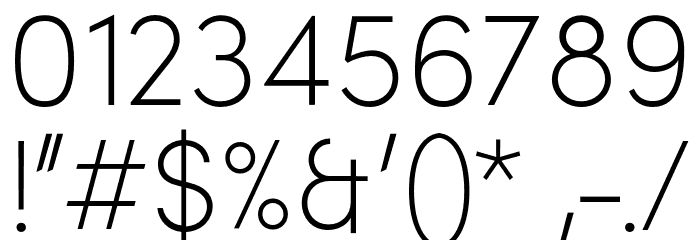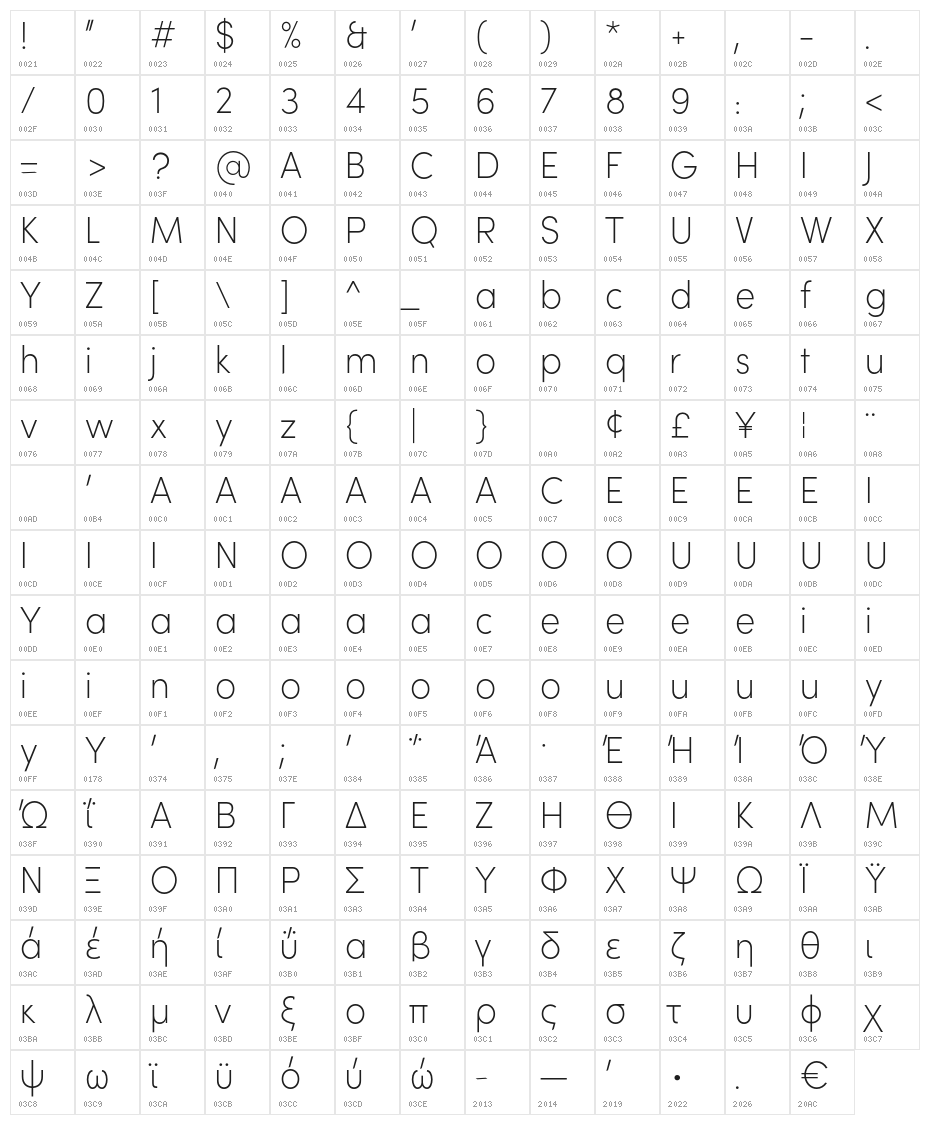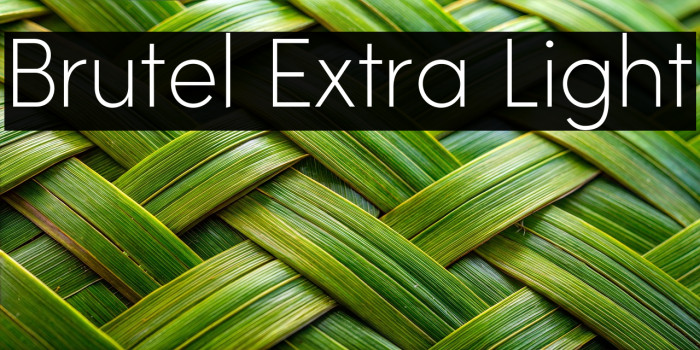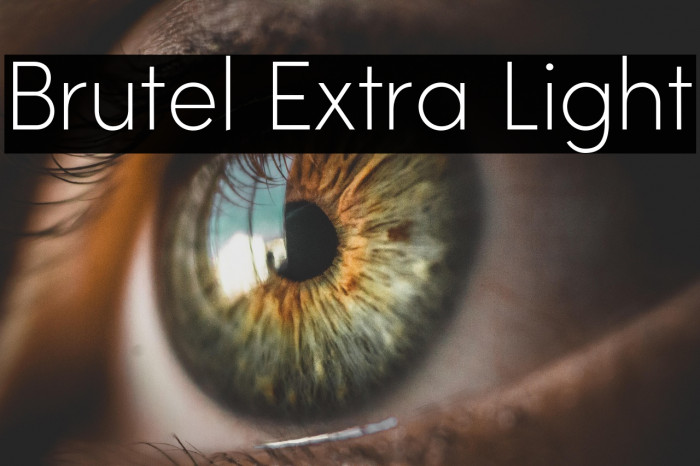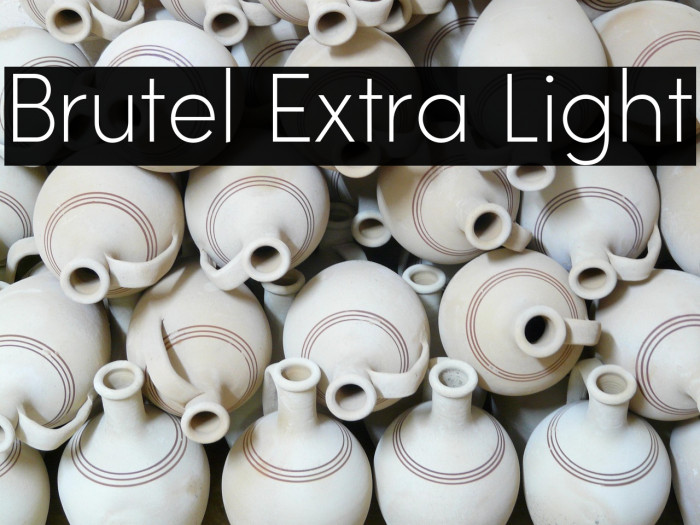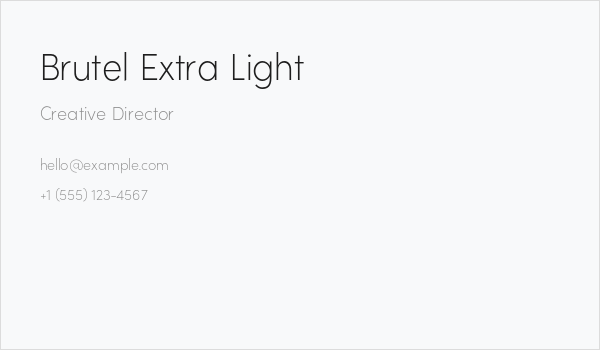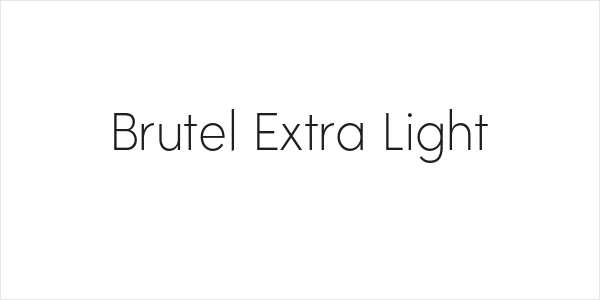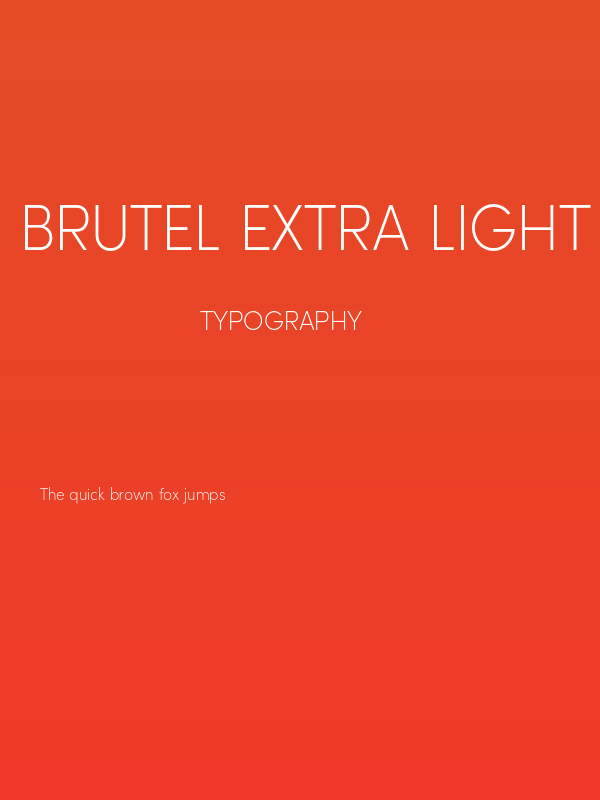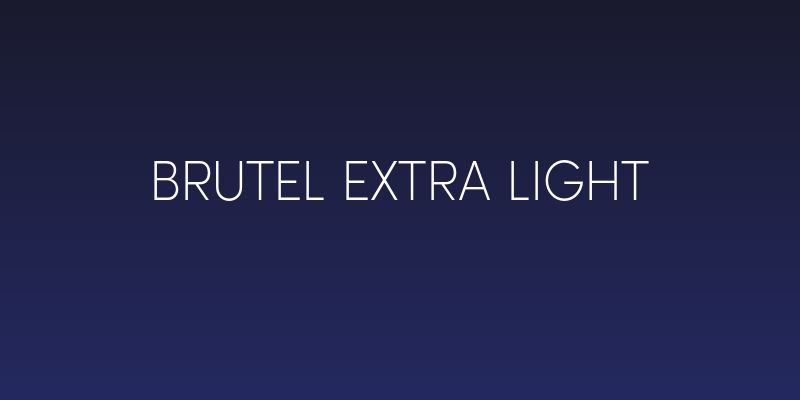
Brutel Extra Light Font
Brutel Extra Light Description
This font showcases a clean and minimalist design with a modern aesthetic. The characters are uniformly structured, featuring smooth curves and straight lines that create a harmonious balance. The uppercase and lowercase letters maintain a consistent height, contributing to a cohesive appearance. The numerals are clear and easily distinguishable, while the special characters are elegantly integrated, maintaining the font's overall sleek style. Its simplicity and clarity make it highly legible, suitable for various design applications.